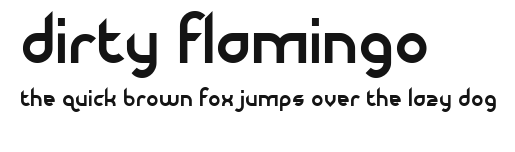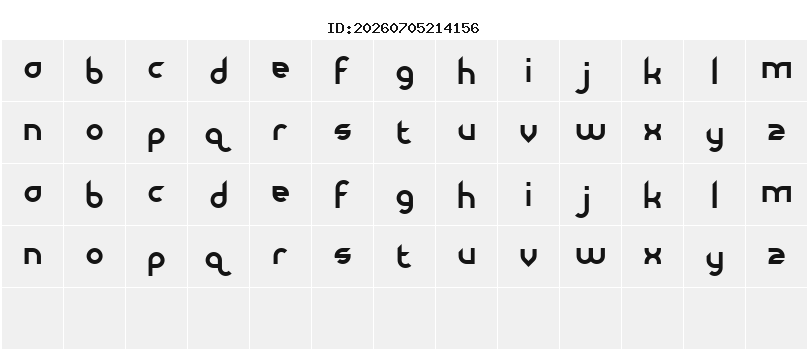
• Font Name: Dirty Flamingo
• Font Style: Dirty Flamingo
• Font ID: defaulterror: Dirty Flamingo: 2007
• Full Font Name: Dirty Flamingo
• Version: Version 1.00 2007 initial release
• PostScript Name: DirtyFlamingo
• Character Count: 53
• Designer: Derek Clark
• Manufacturer: defaulterror
• Description: 2007. Designed for the defaulterror type foundry.
About Dirty Flamingo.ttf
Dirty Flamingo.ttf is a modern, elegant sans-serif font designed for ultimate readability and visual harmony. Perfect for branding, headlines, web design, and print materials.